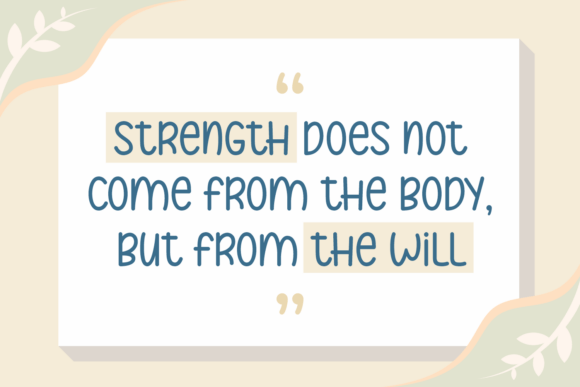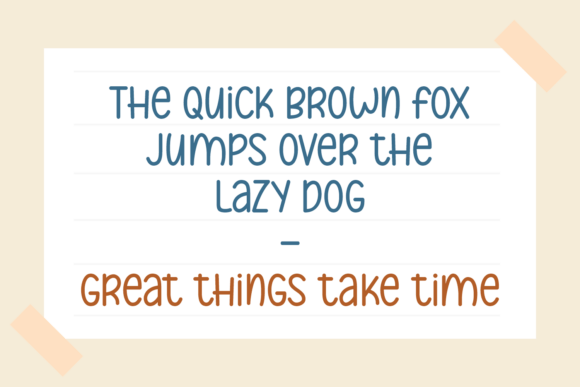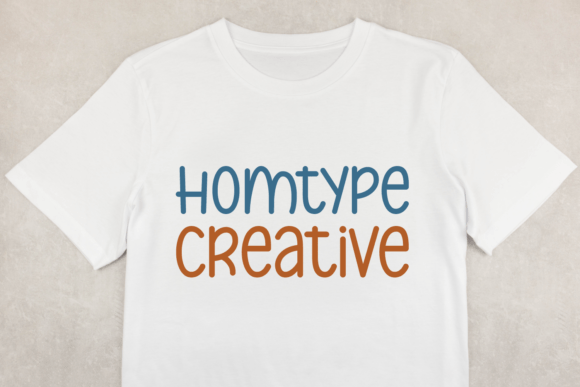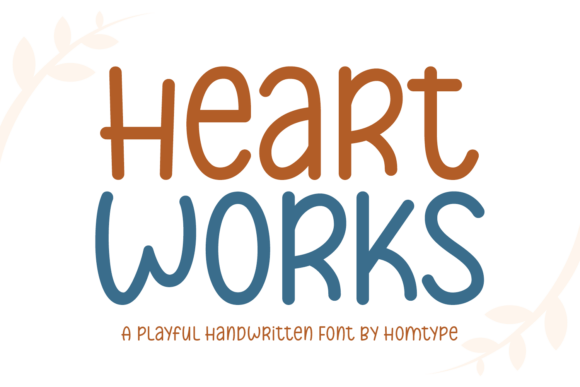
Heart Works Font: Adding a Personal Touch to Your Designs
Are you looking for a font that can add a playful and friendly touch to your designs? Look no further than Heart Works Font! This beautiful handwriting font is perfect for a variety of projects, from social media posts to invitations, notes, and more. In this article, we’ll take a closer look at Heart Works Font and explore its features, benefits, and uses.
What is Heart Works Font?
Heart Works Font is a playful handwriting font that is designed to look clean and easy to read. Its simple style gives your text a casual, friendly feel that’s perfect for a wide range of projects. This font is ideal for designers and crafters who want to add a personal touch to their work. Whether you’re creating social media posts, invitations, notes, or any other type of design, Heart Works Font is a great choice.
Key Features of Heart Works Font
• Playful and Friendly Style: Heart Works Font has a playful and friendly style that’s perfect for adding a personal touch to your designs.
• Clean and Easy to Read: This font is designed to be clean and easy to read, making it perfect for a wide range of projects.
• Simple Style: The simple style of Heart Works Font gives your text a casual, friendly feel that’s perfect for social media posts, invitations, and more.
• Versatile: Heart Works Font is a versatile font that can be used for a wide range of projects, from T-shirts and posters to Valentine’s and Christmas themed designs.
Benefits of Using Heart Works Font
There are many benefits to using Heart Works Font in your designs. Here are a few:
• Adds a Personal Touch: Heart Works Font adds a personal touch to your designs, making them more relatable and engaging.
• Perfect for Kids’ Projects: This font is perfect for kids’ projects, such as educational materials, activity sheets, and more.
• Great for Social Media: Heart Works Font is a great choice for social media posts, as it adds a friendly and approachable touch to your text.
• Easy to Read: This font is easy to read, making it perfect for designs that need to communicate a message clearly.
Uses of Heart Works Font
Heart Works Font is a versatile font that can be used for a wide range of projects. Here are a few ideas:
• T-Shirts and Apparel: Use Heart Works Font to create fun and playful designs for T-shirts, hoodies, and other apparel.
• Posters and Flyers: This font is perfect for creating eye-catching posters and flyers for events, promotions, and more.
• Valentine’s and Christmas Designs: Heart Works Font is a great choice for Valentine’s and Christmas themed designs, such as cards, invitations, and more.
• Social Media Posts: Use this font to add a friendly and approachable touch to your social media posts.
• Invitations and Notes: Heart Works Font is perfect for creating invitations, notes, and other personal messages.
Tips for Using Heart Works Font
Here are a few tips for using Heart Works Font in your designs:
• Use it for Headings and Titles: Heart Works Font is perfect for headings and titles, as it adds a playful and friendly touch to your text.
• Pair it with Other Fonts: This font pairs well with other fonts, such as sans-serif fonts, to create a fun and playful contrast.
• Experiment with Colors: Heart Works Font looks great in a variety of colors, so don’t be afraid to experiment and find the perfect color for your design.
Font Name Heart Works Font
Author Homtype
Heart Works Font is a beautiful and versatile font that can add a personal touch to your designs. Its playful and friendly style makes it perfect for a wide range of projects, from social media posts to invitations, notes, and more. With its clean and easy-to-read style, Heart Works Font is a great choice for designers and crafters who want to create engaging and effective designs. So why not give it a try and see how Heart Works Font can elevate your designs?